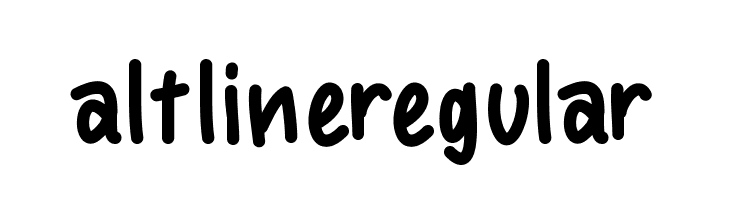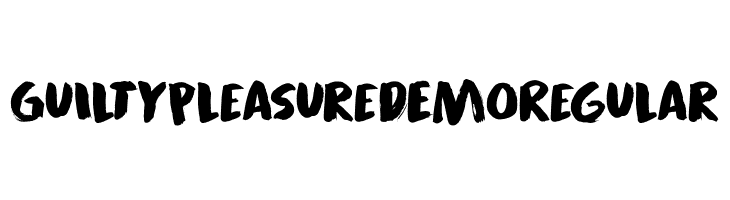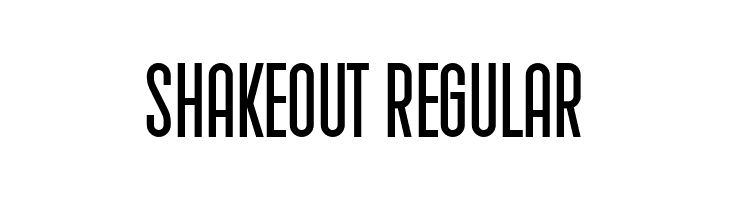
A casual, hand-drawn font with rounded, playful letterforms.
A bold, brush-style font with dynamic, hand-painted strokes.
A bold, angular font with a futuristic and geometric design.
A whimsical, cursive font with elegant loops and a romantic feel.
A bold, italic typeface with a dynamic and modern style.
A bold, geometric font with a halftone effect, ideal for futuristic designs.
A bold, condensed font with a modern industrial style and high contrast.
A bold, outlined font with a vintage yet modern style.
A playful, handwritten font with smooth, flowing characters and a whimsical style.
A decorative, hand-drawn style font with bold outlines and hollow interiors.